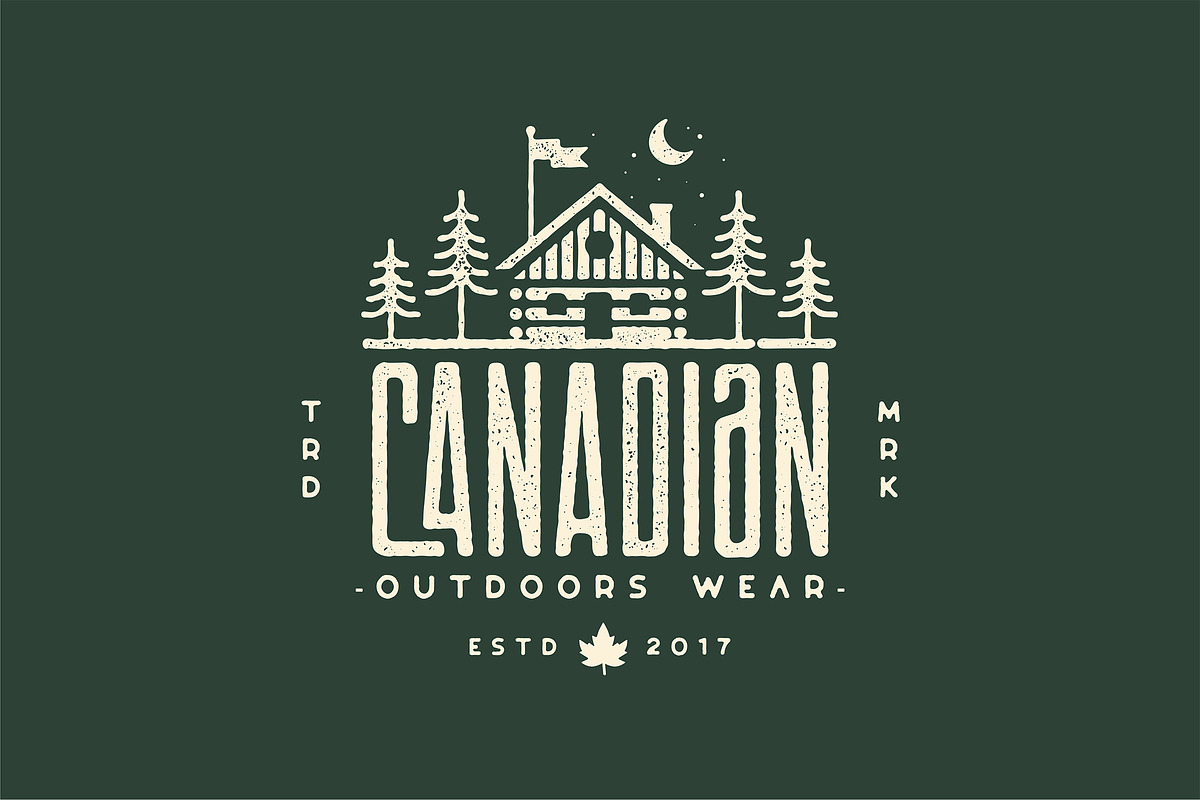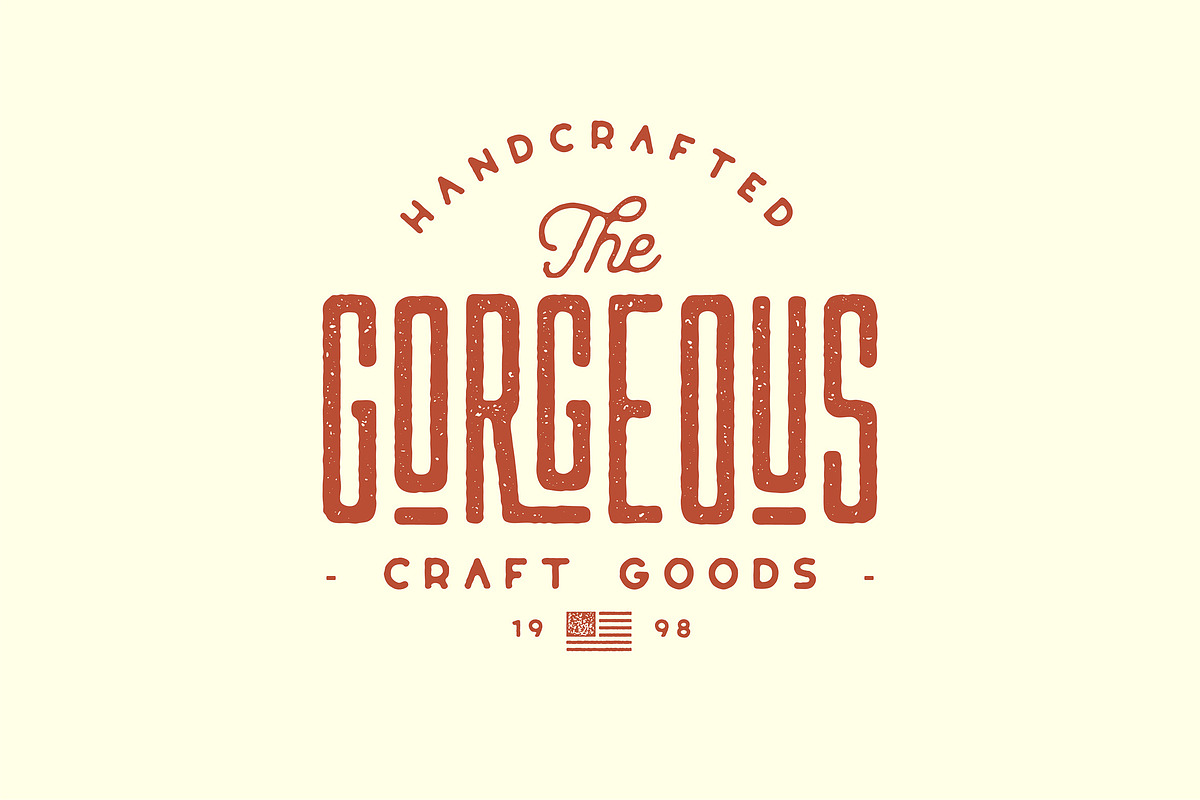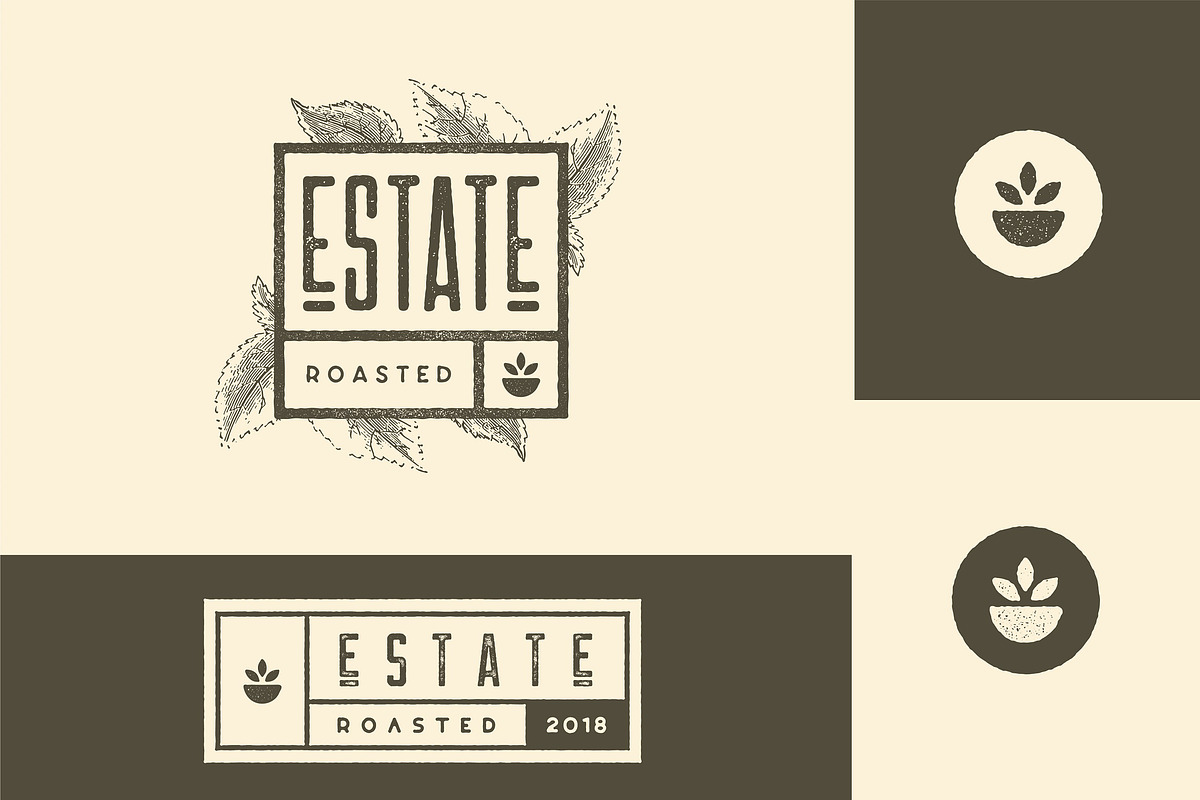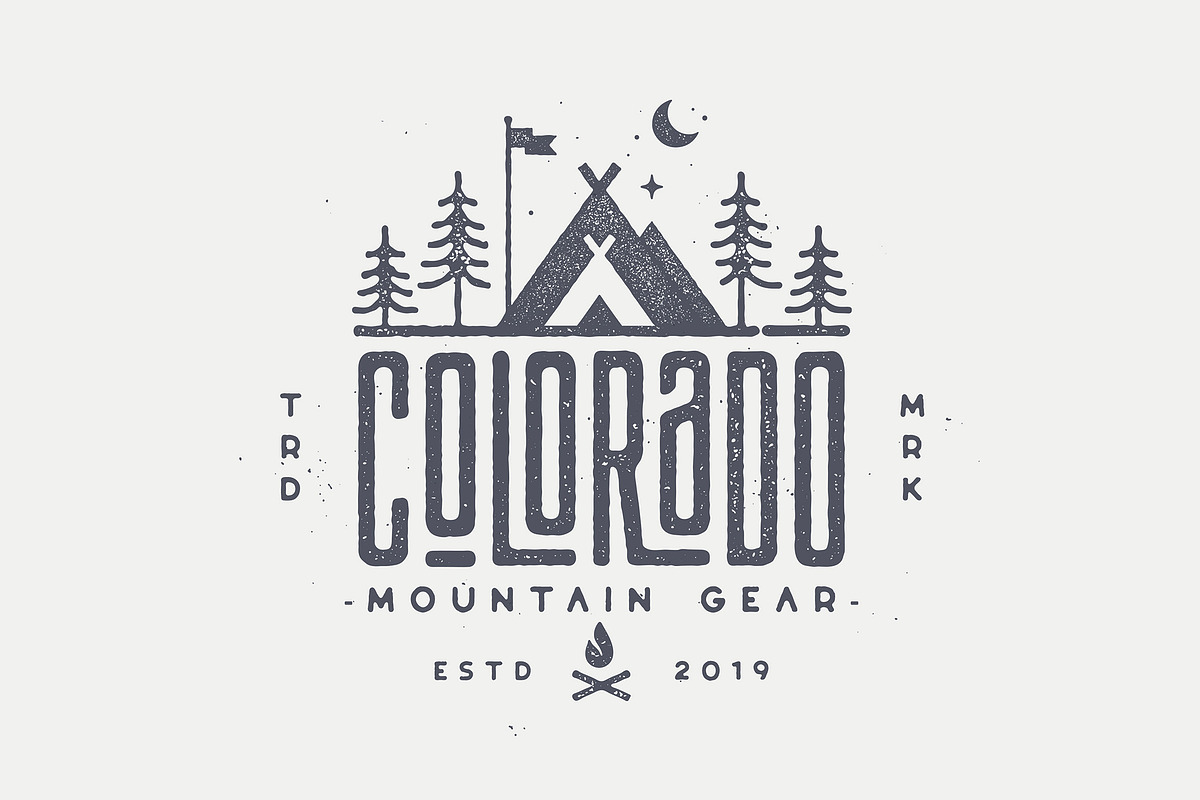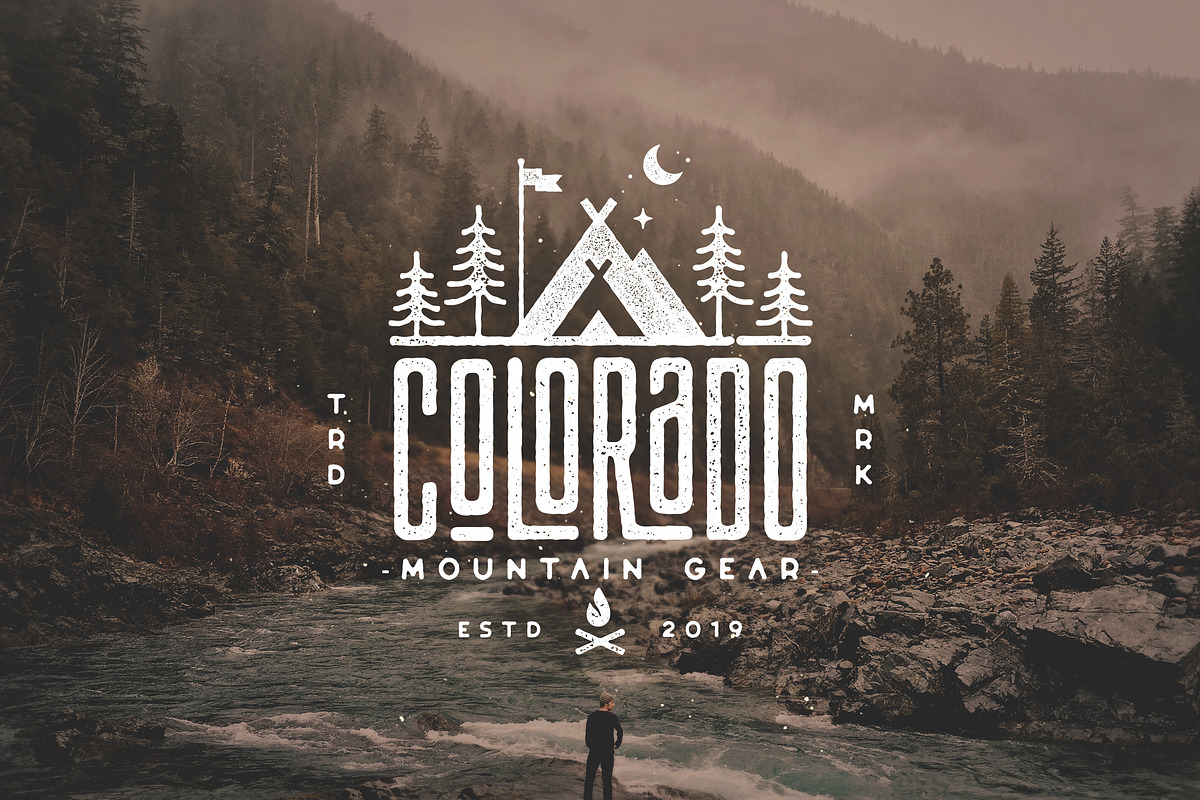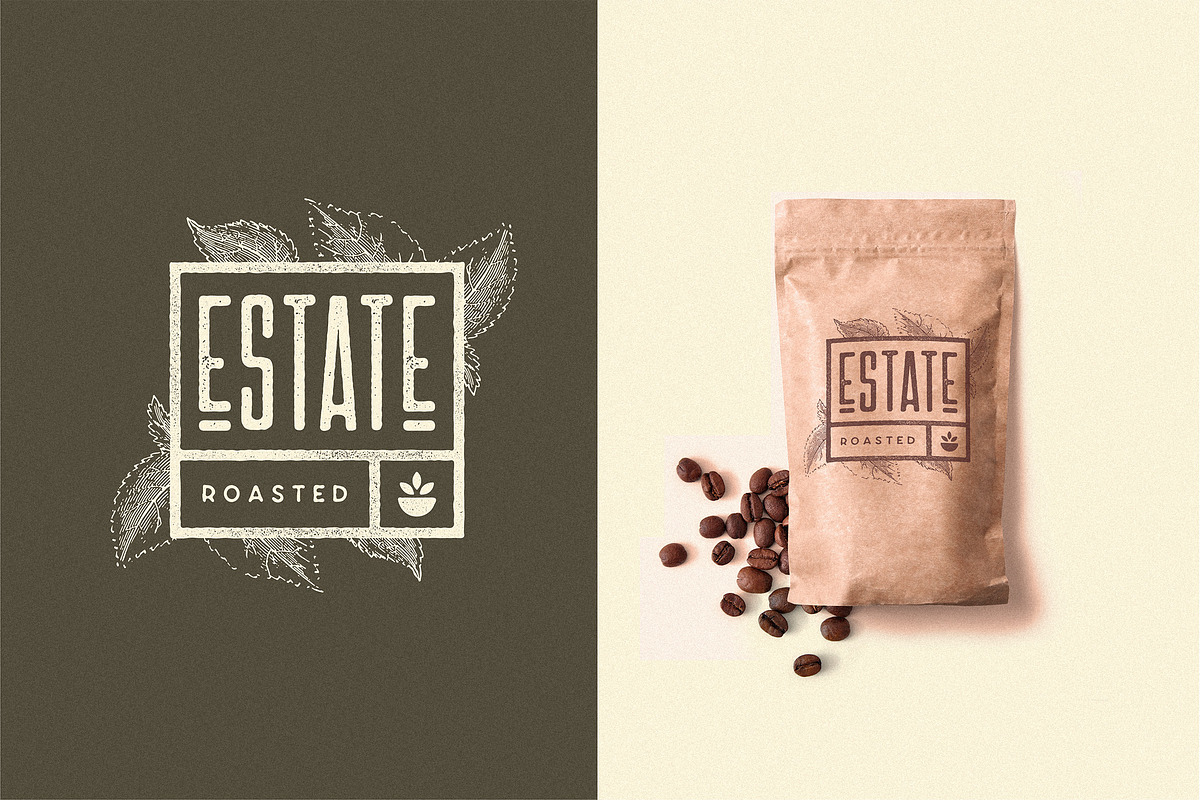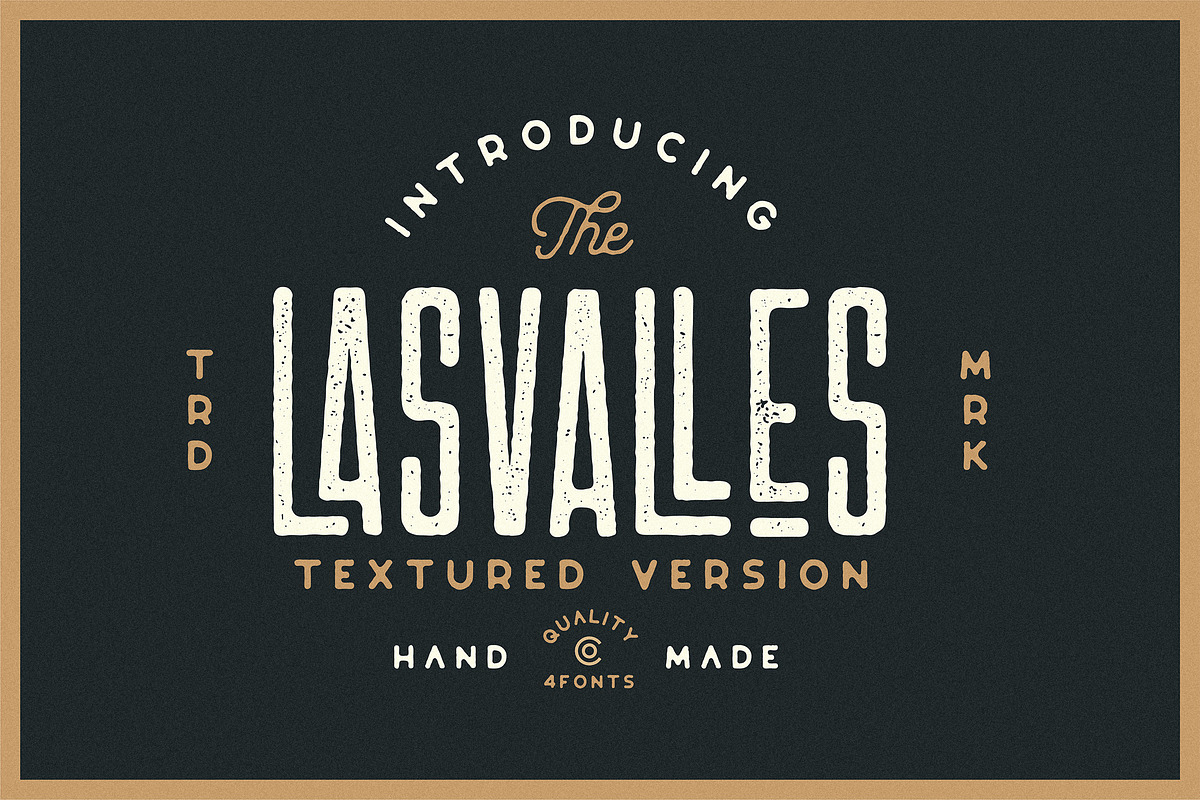
Las Valles Textured Typeface
Introducing LasValles Textured a tall Ultra condensed sans serif font coming in 4 styles. If you are looking for Strong Vintage letters with a ton of unique Ligatures and style to choose, LasValles is the perfect fit. It’s a memorable, fashionable, strong and elegant typeface. You can mix and match the rounded and the Regular style to create something very fresh and modern. Awesome right? The vintage style is the bad boy of the collection, old but still look very modern. This fonts is perfect for headlines, quotes, Logo, Web, magazine covers, editorial design, print posters, signage, window shop design, and much more.
Ton of Beautiful Ligatures & Alternates
- All caps
- Ton of Beautiful Ligatures & Alternates